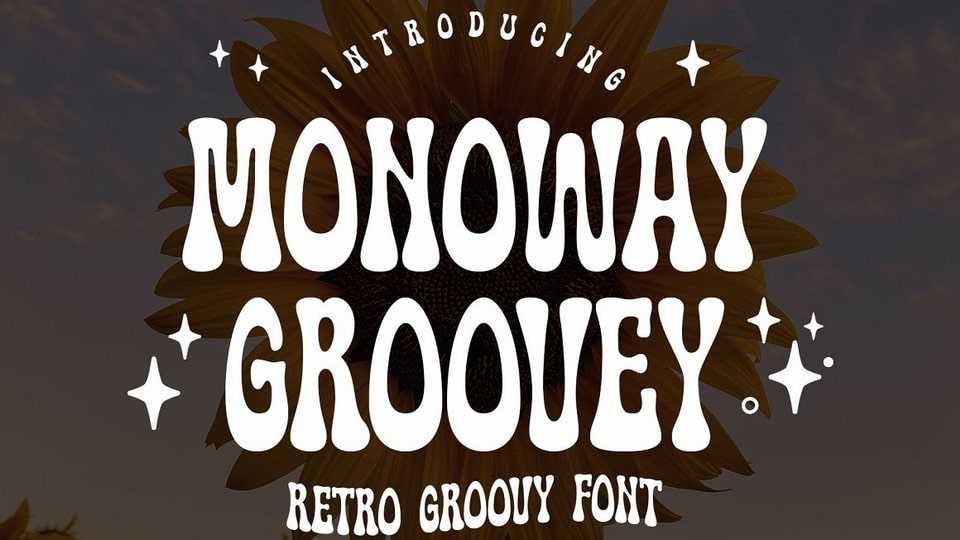
Download Monoway Groovey font, a display typeface inspired by the iconic pop art and design trends of the 70s. This font boasts a stunning shape based on curves, giving your designs a dynamic and lovely impression that is sure to catch the eye.